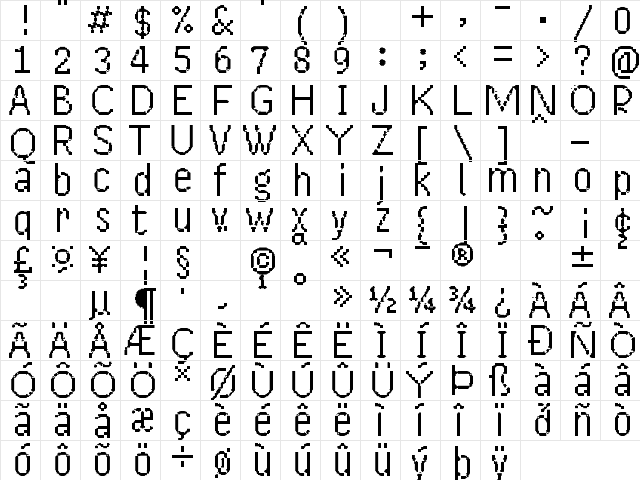
UF Mana-13 Regular
| Foundry | Ultrafonts |
| Designer | Hrant Papazian |
Design Context for UF Mana-13 Typeface
UF Mana-13 takes a measured approach to typography — its balanced proportions and neutral character make it a reliable workhorse for both digital and print work.